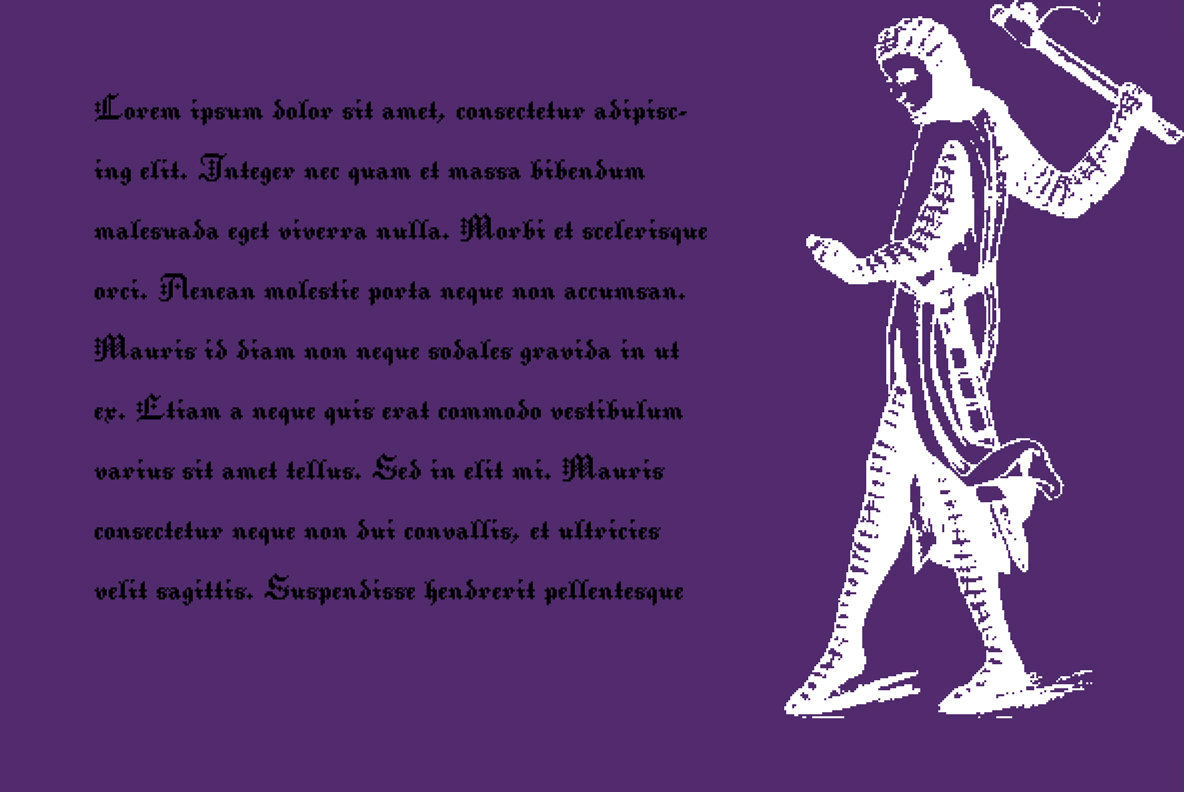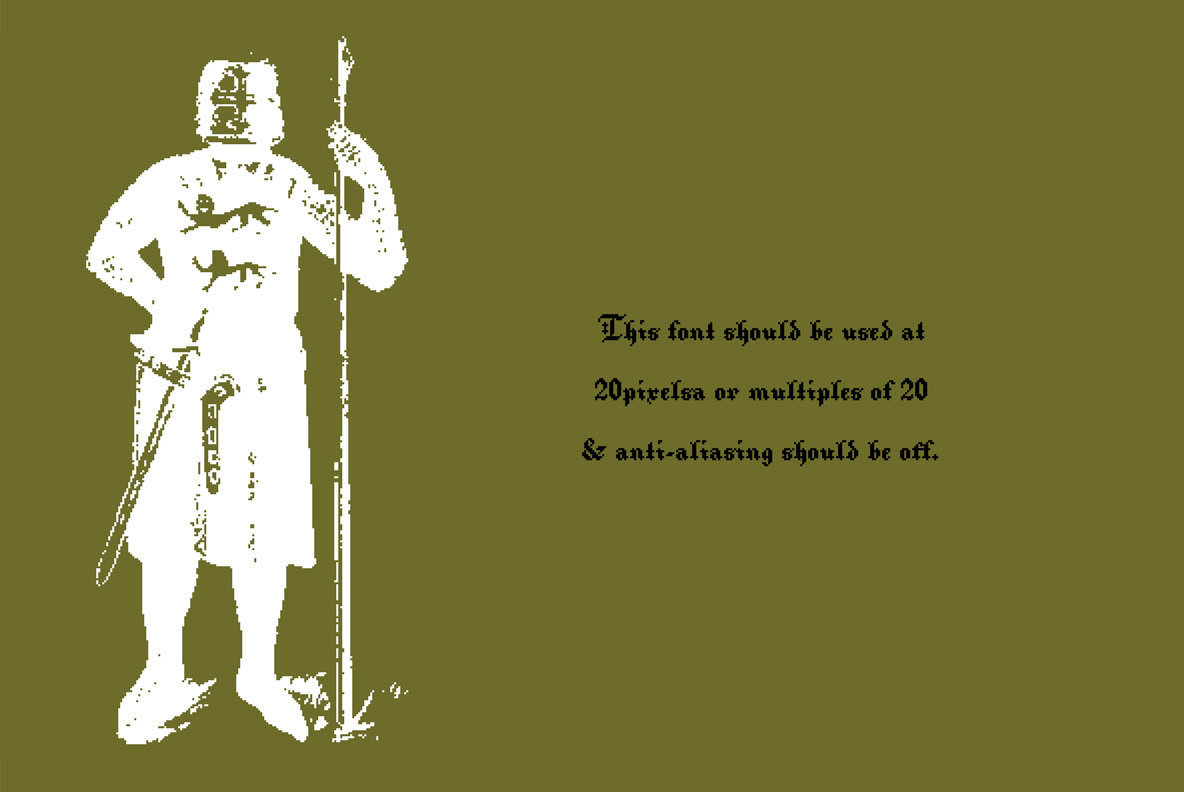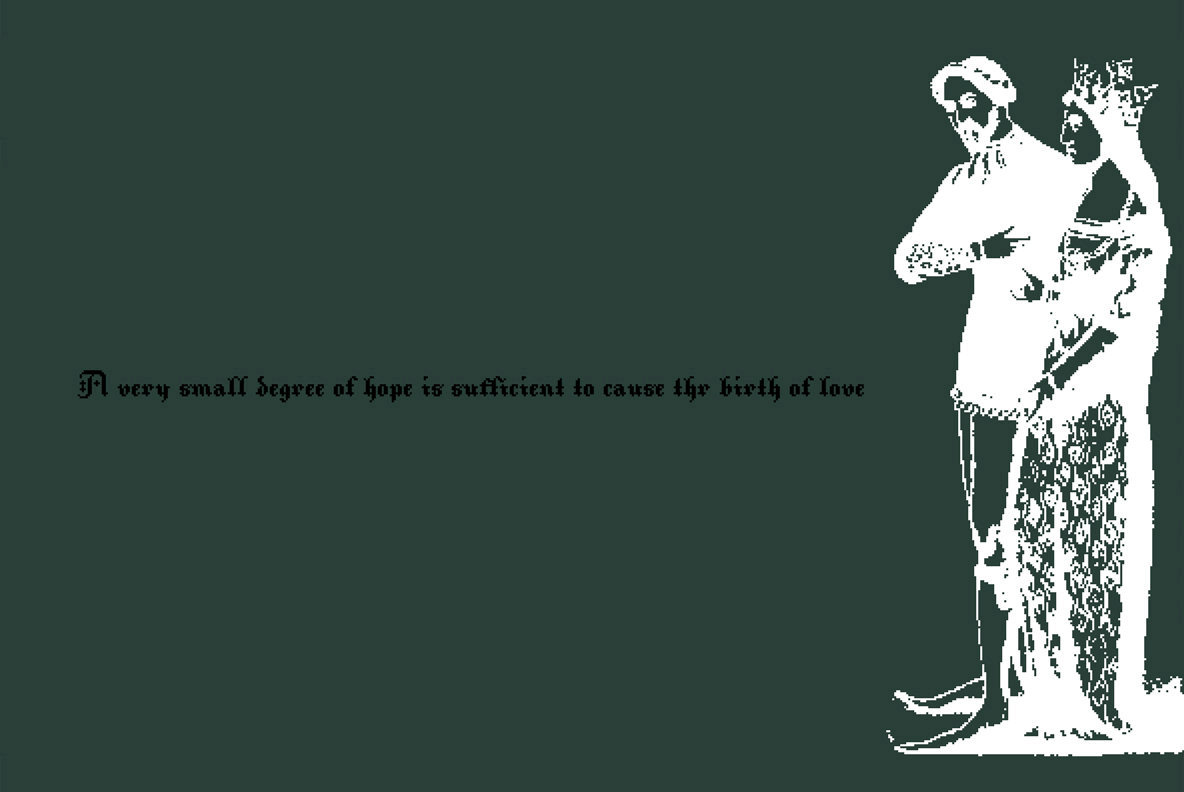
Flat20 Gothic
This 8-bit pixel font is designed with respect for 80s game designers and the pixel font pioneers in middle 90s. Use at size 20 pixels or multiples of 20 and anti-alias off is recommended.